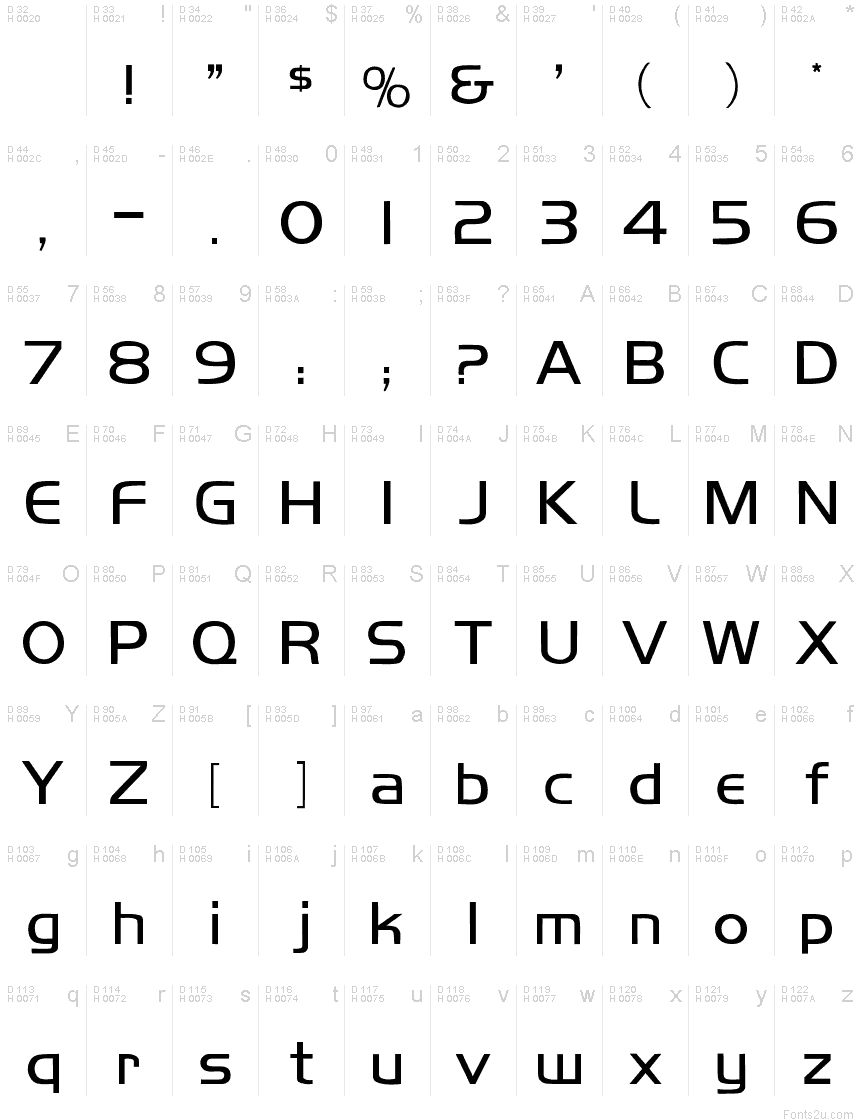
Koshgarian-Ligh
Koshgarian font by D. Rakowski is a free geometric sans serif typeface. Its letters flow in sleek, continuous strokes that feel almost machine-cut, with squared curves and clean verticals that give every word a subtle sci‑fi hum. The spacing is airy without feeling fragile, so even at smaller sizes the text keeps a crisp, engineered precision.
Using Koshgarian, you get a cool, technical voice that works beautifully for UI mockups, product packaging, tech branding, posters, game titles, and minimalist social graphics. This free font shines when you give it room to breathe, so try it a little larger than your usual body text and pair it with a simple grotesk for secondary copy.